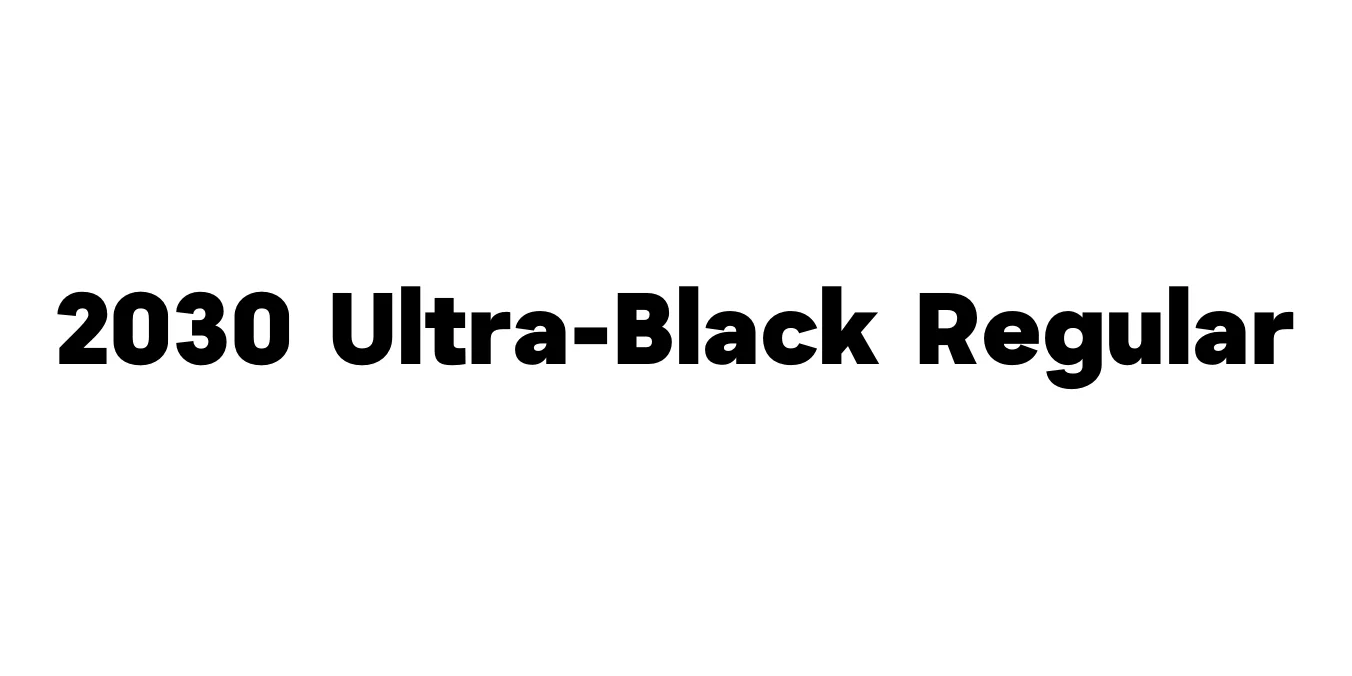
2030 Ultra-Black Regular
Designed by Rian Hughes
| Category | Geometric Sans-Serif |
| Designer | Rian Hughes |
2030 Ultra-Black Regular is a striking display typeface designed by the renowned British graphic designer Rian Hughes. Released through his foundry, Device Fonts, this typeface draws inspiration from the geometric experiments of the early 20th century while infusing a sleek, retro-futuristic aesthetic. Its massive weight and rigid construction make it an ideal choice for high-impact visual communication where a bold statement is necessary.
The design of 2030 focuses on modular forms and minimal negative space, resulting in a dense, powerful presence on the page. It is part of a larger family that explores the intersection of Bauhaus principles and modern digital precision. This ultra-black variant is particularly suited for headlines, logos, and environmental graphics where legibility at a distance and a sense of architectural strength are required.
2030 Ultra-Black Regular Best Uses
Perfect for creating bold, memorable brand identities with a modern edge.
Ideal for large-scale editorial titles and impactful poster designs.
Excellent for environmental graphics requiring high visibility and strength.
Suited for sci-fi or tech-themed video game interfaces and marketing materials.